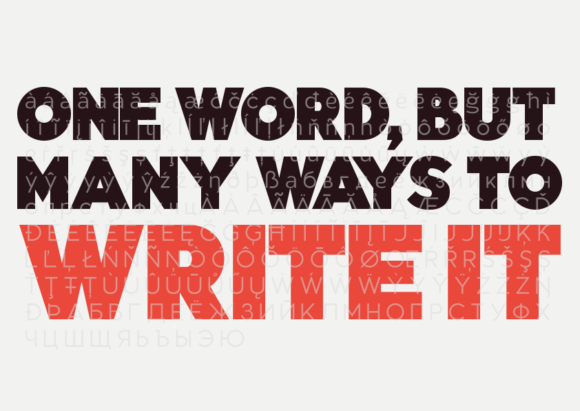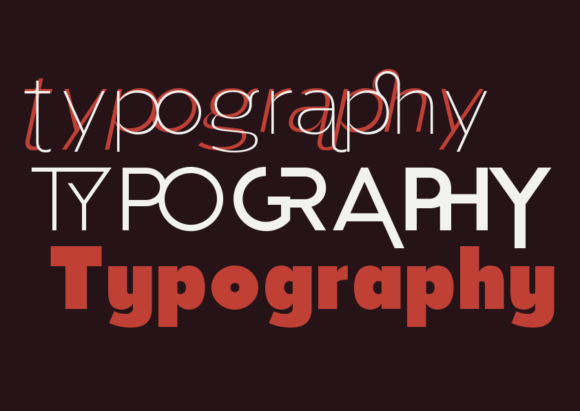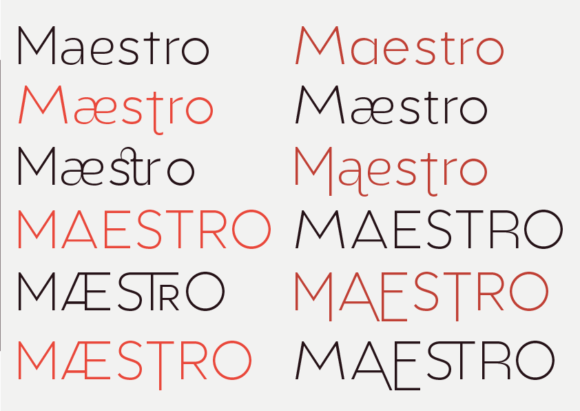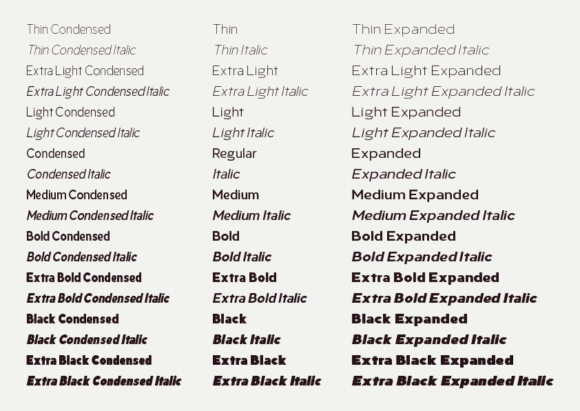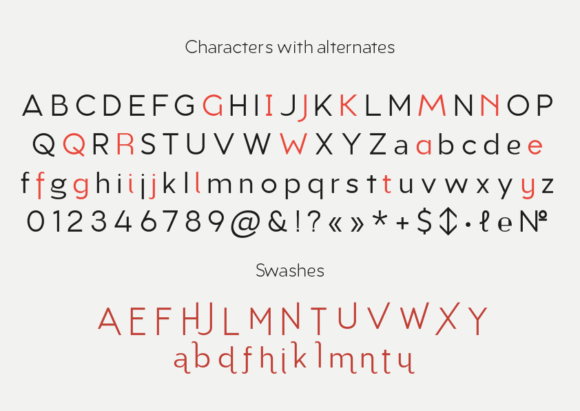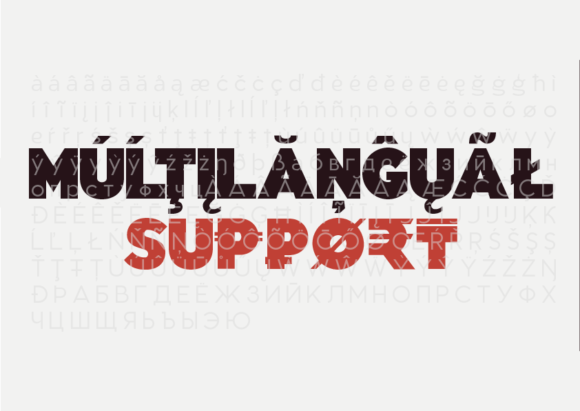
Unlock the Power of Aesthetic Typography
You know that moment when a font suddenly sparks an idea and takes your design to the next level? It’s like a lightbulb goes off in your head, and you can’t wait to bring your vision to life. For designers, finding the perfect font can be the difference between a good design and a great one. That’s where the Aukim Expanded Font comes in – a simple yet striking display font that’s sure to inspire your creations.
With its clean lines and sharp edges, the Aukim Expanded Font is perfect for adding a touch of elegance to your designs. Whether you’re working on a logo, a brochure, or a website, this font will elevate your work and make it truly stand out. As a valuable tool for designers, the Aukim Expanded Font offers endless possibilities for creative expression and experimentation.
Aukim Expanded Font Key Features
- Font Family: Aukim Expanded is a custom font family designed for use in various digital applications.
- Character Set: Includes a wide range of characters, including Latin, Cyrillic, and Greek alphabets, as well as punctuation and symbols.
- Unique Characteristics: Features an expanded character set, with each character having multiple variations to accommodate different languages and styles.
Aukim Expanded Font Review
As a designer, I was excited to dive into the Aukim Expanded Font and see what it had to offer. Here’s my honest review:
- The unique, expanded feel of the font is a great addition to any design project. It adds a sense of playfulness and whimsy that’s hard to find in other fonts.
- The font is highly legible, even at smaller sizes, making it a great choice for body text and other areas where readability is key.
- The font family is quite extensive, with a wide range of weights and styles to choose from, giving designers plenty of options for customization.
- The font can feel a bit overwhelming when used in large blocks of text. It’s best to use it sparingly to avoid overwhelming the reader.
- The font may not be suitable for formal or professional projects, as its playful feel may not be taken seriously.
- The font may not be as versatile as some other fonts, as its unique feel may not work well in all design contexts.
The Aukim Expanded Font is a great addition to any designer’s toolkit. While it may have some limitations, its unique feel and high legibility make it a great choice for a wide range of projects. With careful use, it can add a touch of personality and whimsy to any design.
Tips for Getting the Most Out of Aukim Expanded Font
To get the most out of Aukim Expanded Font, try the following:
- Use Aukim Expanded Font for headings and titles to create a bold and eye-catching effect.
- Pair Aukim Expanded Font with a clean and simple font for body text to create a visually appealing contrast.
- Experiment with different font sizes and colors to create a unique and creative look.
Common Use Cases for Aukim Expanded Font
Aukim Expanded Font is commonly used for:
- Headings and